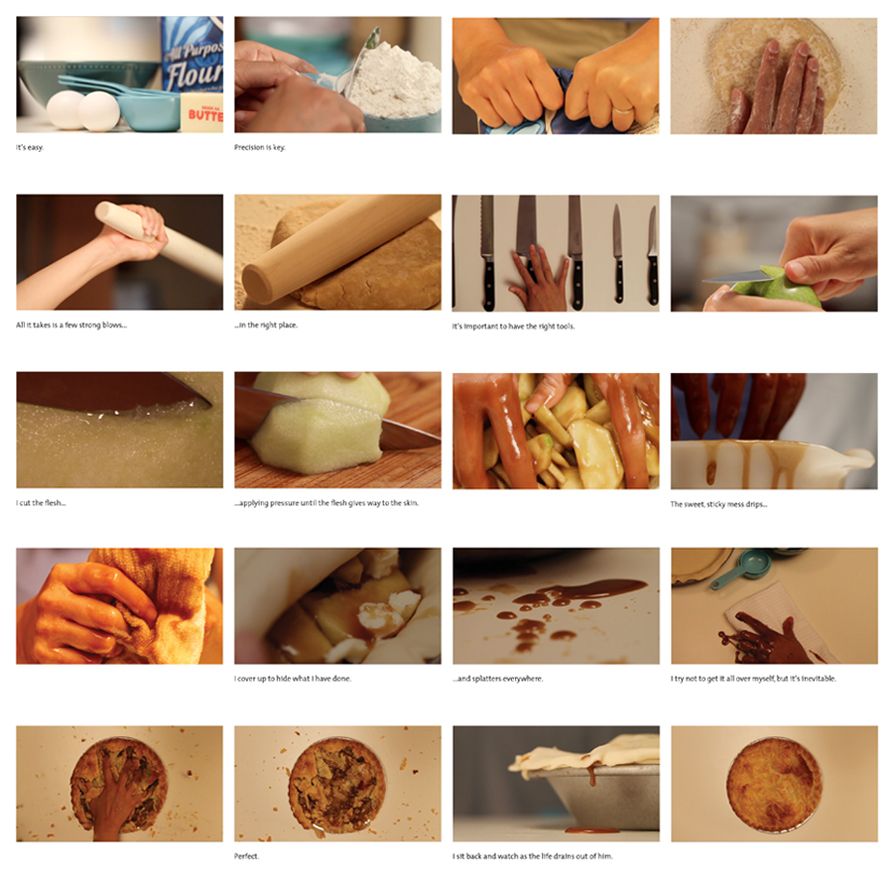
Oliver Lo studied architecture in college and spent nearly a decade as a teacher in an economically underserved public school in Los Angeles. He was looking for a creative outlet outside of teaching and took up graphic design classes being offered by the public programs at Art Center College of Design in Pasadena, California. After five years of taking design classes “for fun,” Oliver finally enrolled as a full-time student.
I normally reside in Pasadena but am currently taking a semester off to intern at Michael Osborne Design in San Francisco. It has been an extremely positive experience. There’s a lot of work at the studio and I am sort of just getting thrown into the projects. It’s great. It’s the best way to learn and I'm having so much fun while I’m at it.
How did this concept come about?
I completed this as the final project for one of the design classes I was taking. The assignment was to create a short motion graphic piece using Cinema4D. Although the parameters were pretty wide open, I decided to take on the challenge of doing a piece with live footage for which I had no previous experience. I only had one day to shoot all the footage. This meant a lot of careful planning so that I could get all the shots I needed in one go. I completed the animation in the span of a week, squeezing in time between final projects for other classes.
Mood and inspiration board for “Perfect Pie”. Title sequences of “Dexter” directed by Eric Anderson. “Stranger Than Fiction” produced by MK12. Photographs from Martha Stewart Living.
Since my background has mostly been in print design, this project stretched me to communicate visually through a dynamic medium. I learned a great deal about storyboarding. Getting my friends involved was another great aspect of this project. A friend kindly agreed to do the voice and acting. On the day of the shoot, a classmate helped with lighting, while another friend helped me with camera work. It was definitely a team effort.
What was your overall inspiration for the project?
Sinister influences. This project was influenced by my loves of baking, mystery novels and TV crime shows. At the beginning of the project, the instructor asked us to brainstorm a list of words and to use a combination of words from the list to come up with a concept. My words were “forensic science” and “cooking show.“ The opening credits to the hit show “Dexter” instantly came to mind. It’s brilliant how vignettes of ordinary, mundane things could imply something as sinister as murder. It got me thinking about how I could tell the story of a murder through the seemingly innocuous act of a woman baking a pie. Isn’t that how it often is—that the greatest ideas come from combining two very disparate, unrelated subjects?
I also referenced a lot of Martha Stewart Living magazines. I observed that in many of the photographs everything is so carefully and meticulously arranged that they feel sterile. Even though everything looks perfect on the surface, you can almost imagine something eerie, stifling and unsettling happening underneath. I tried to capture the same quality by desaturating the footage and utilizing a color palette that was inspired by some of the magazine’s photography.
For the typography, I was inspired by the treatment of the opening title for the movie “Stranger Than Fiction.” If you’ve seen it, you know it’s an impossibly tough act to follow. I wanted to weave the animated typography as naturally into the live footage as possible like they did. This meant a lot of rotoscoping in Cinema4D to make the type seem as if it was interacting with and inhabiting the same space as the actor, props and environment. The typography takes up a supporting role, hopefully adding interest without interfering with the main narrative. I tried to have the type animate in different ways in each scene. Trade Gothic was an ideal typeface because I felt it helped communicate the idea of forensic science. The condensed sans serif typeface has an unfeeling, precise and scientific feel to it.